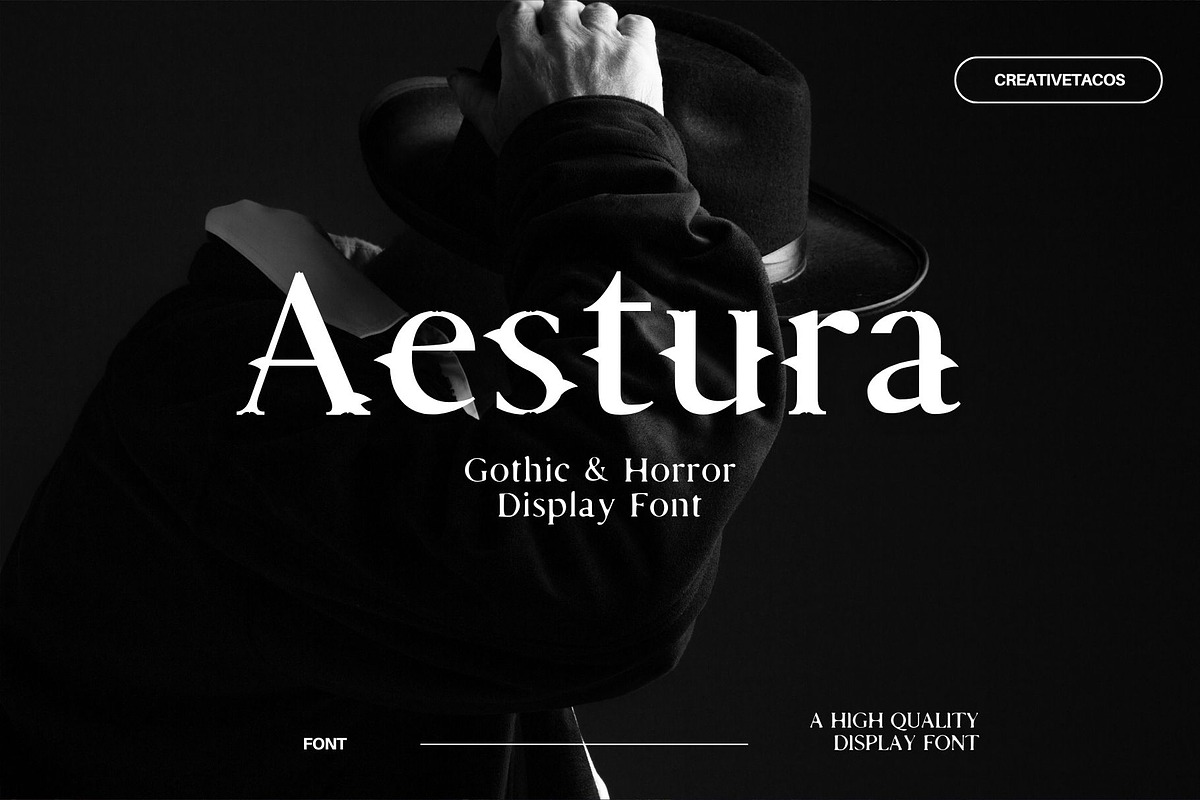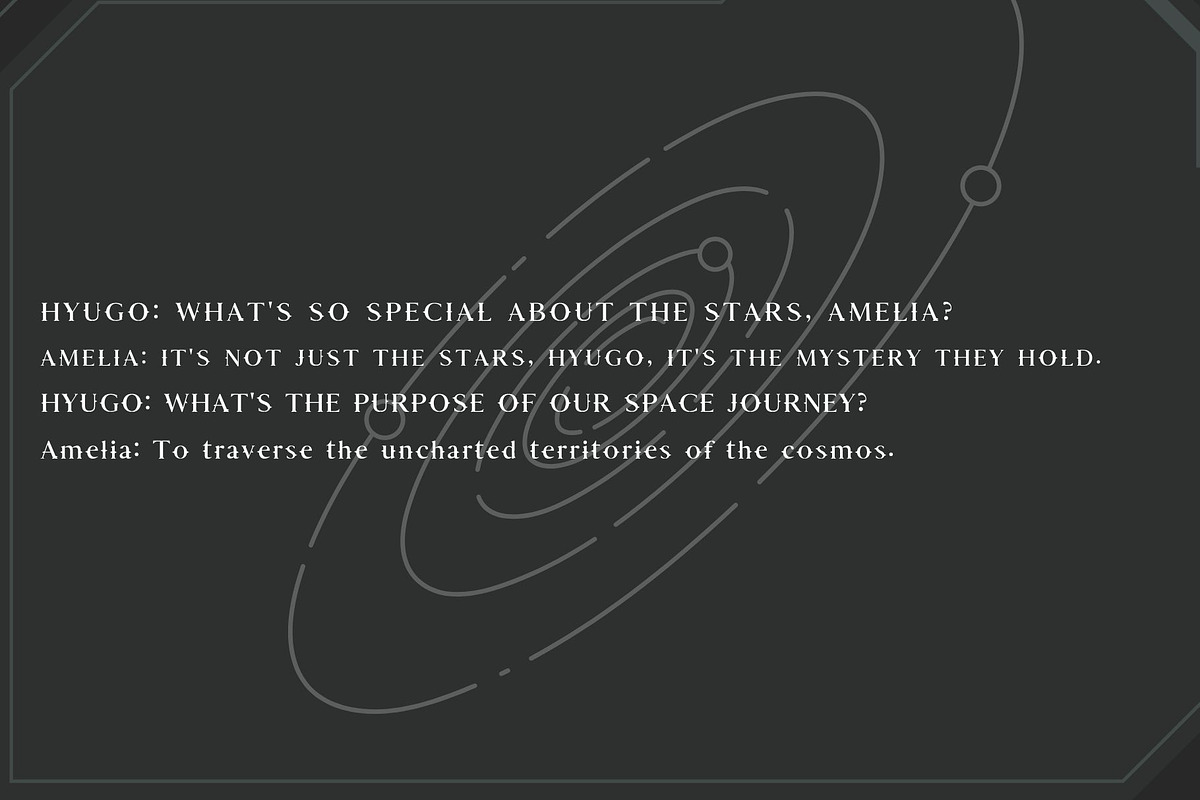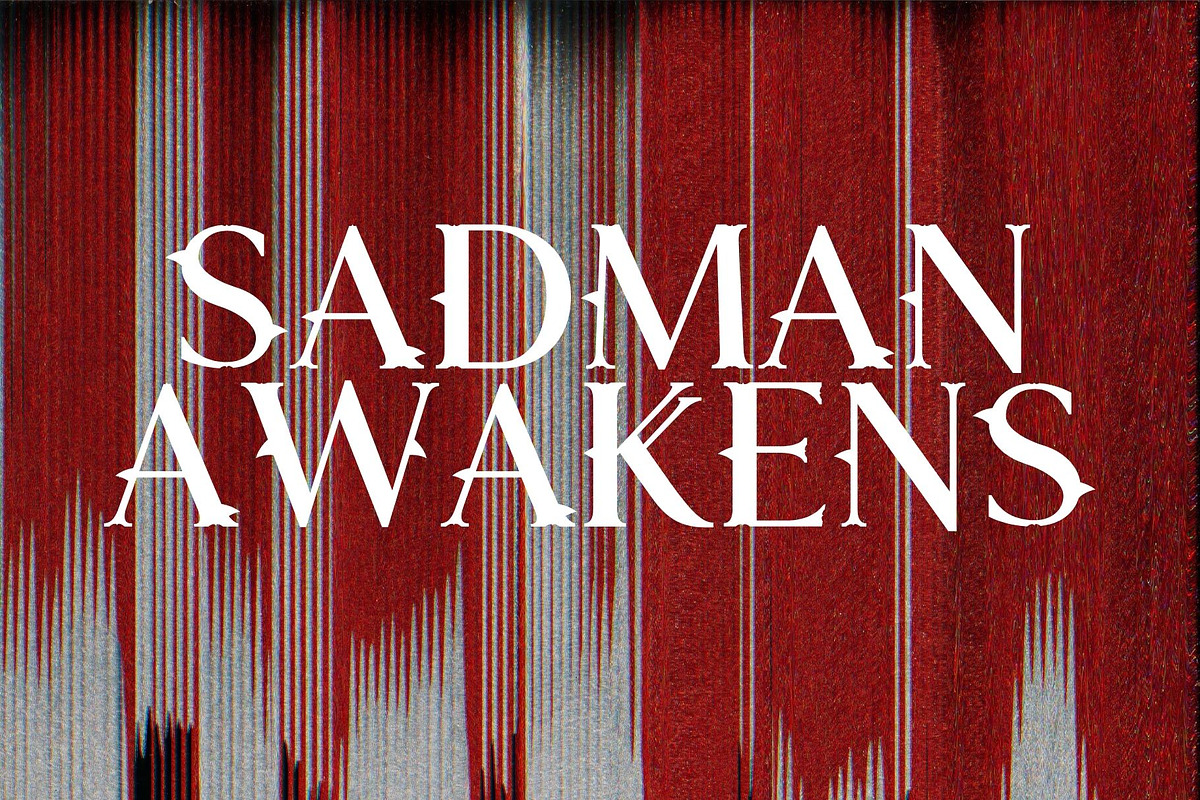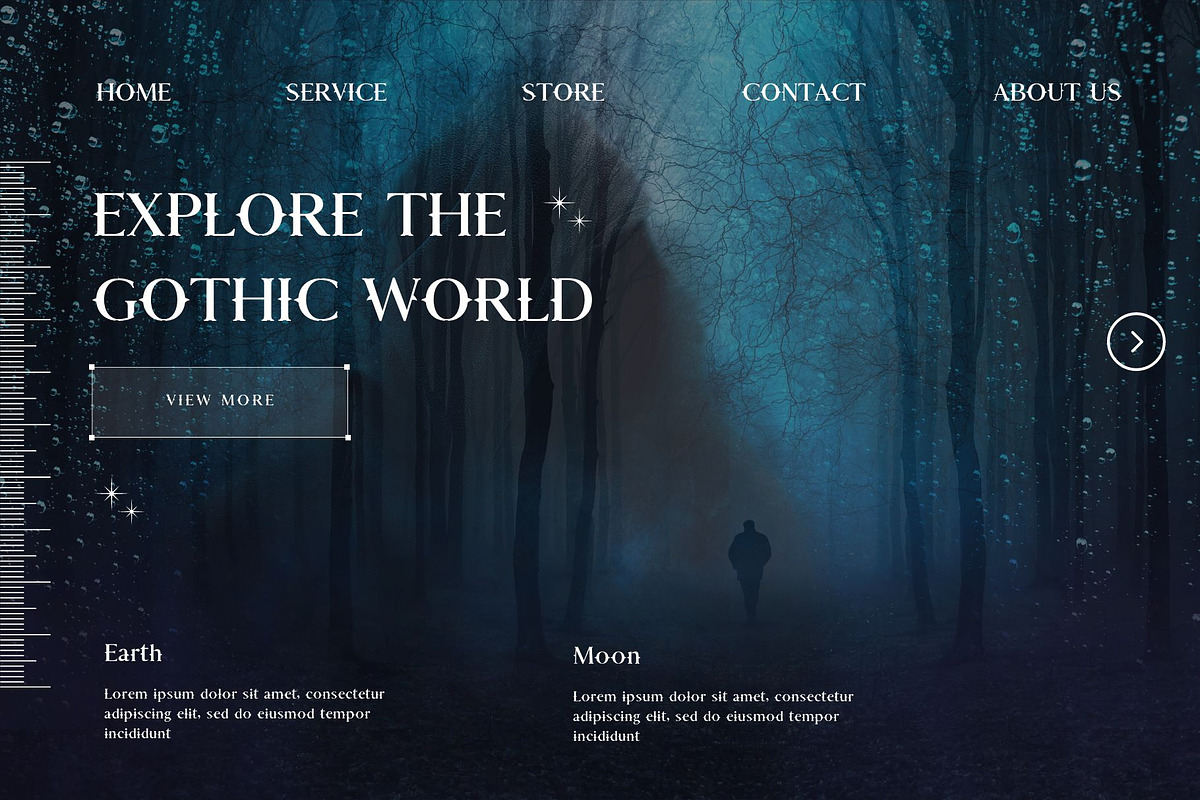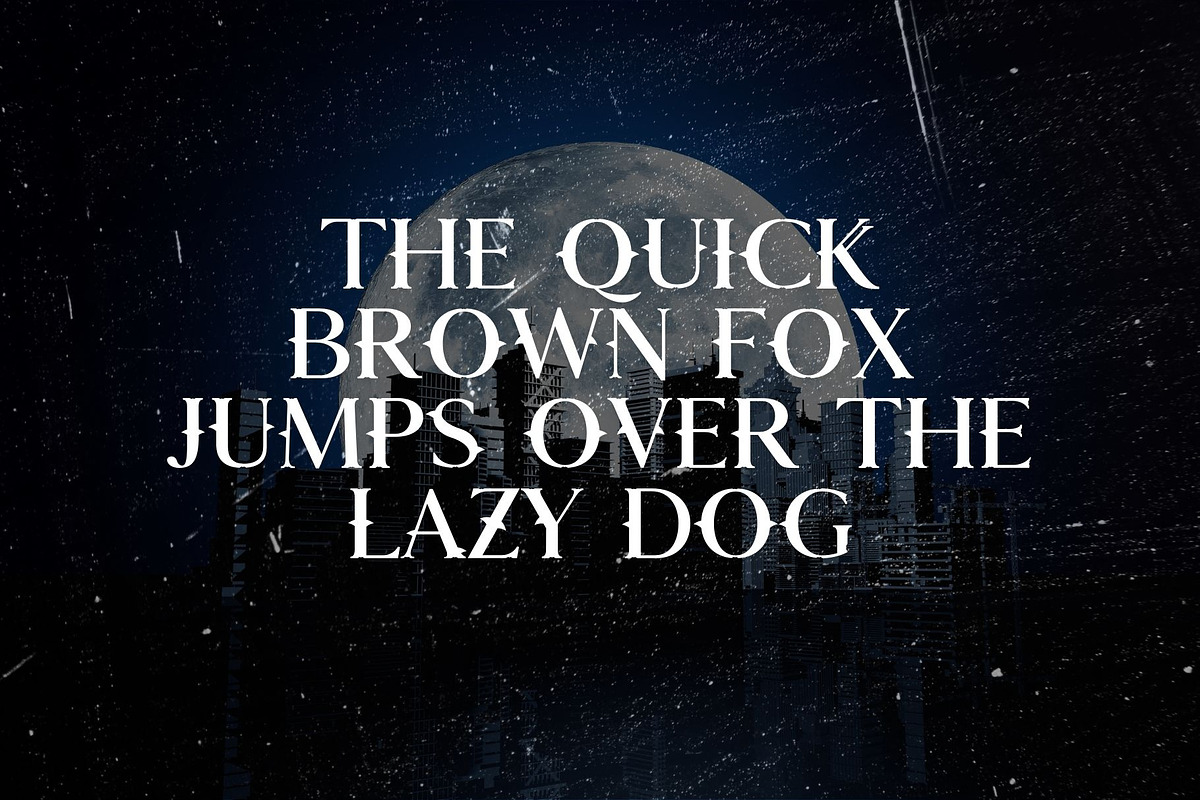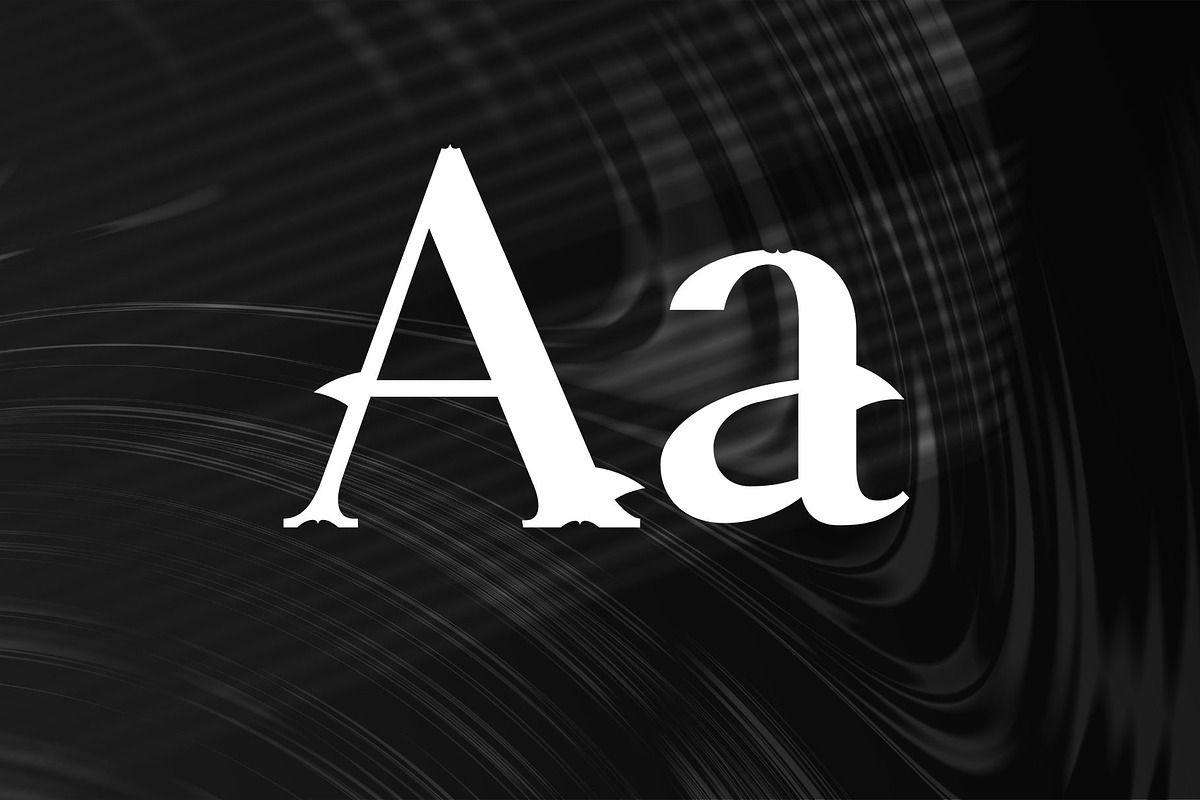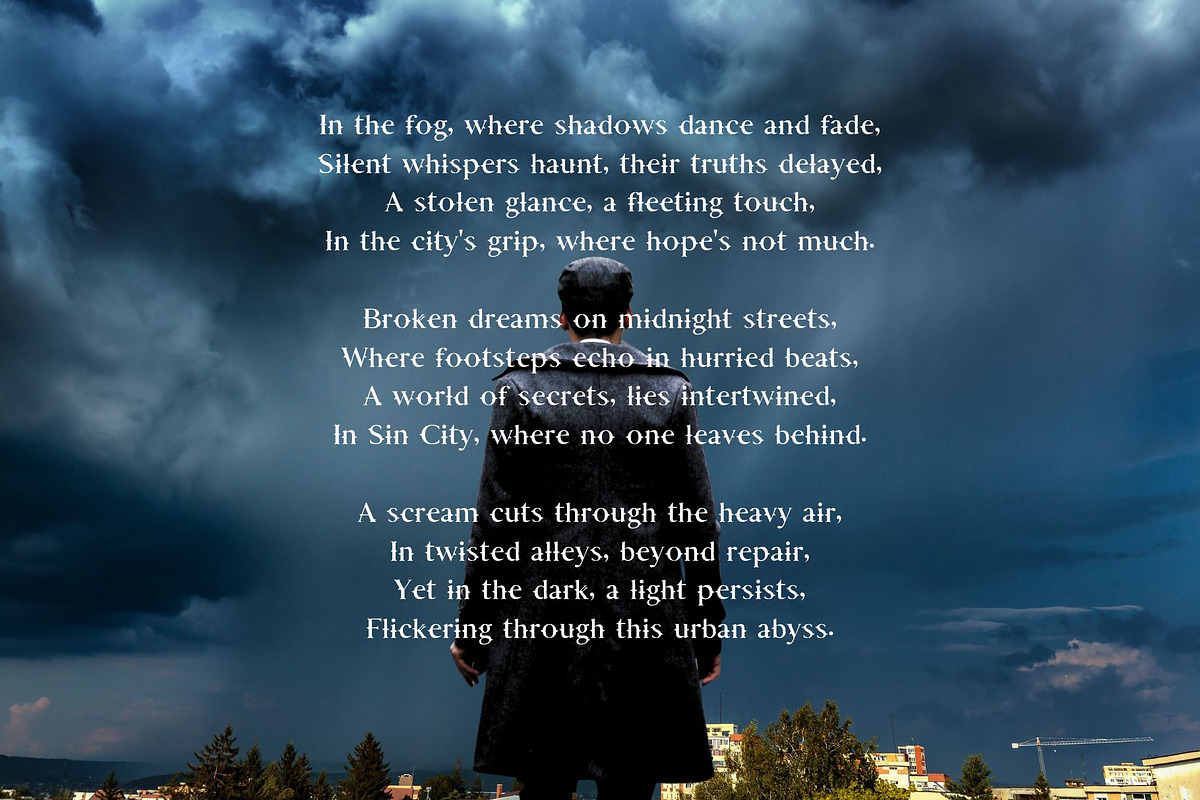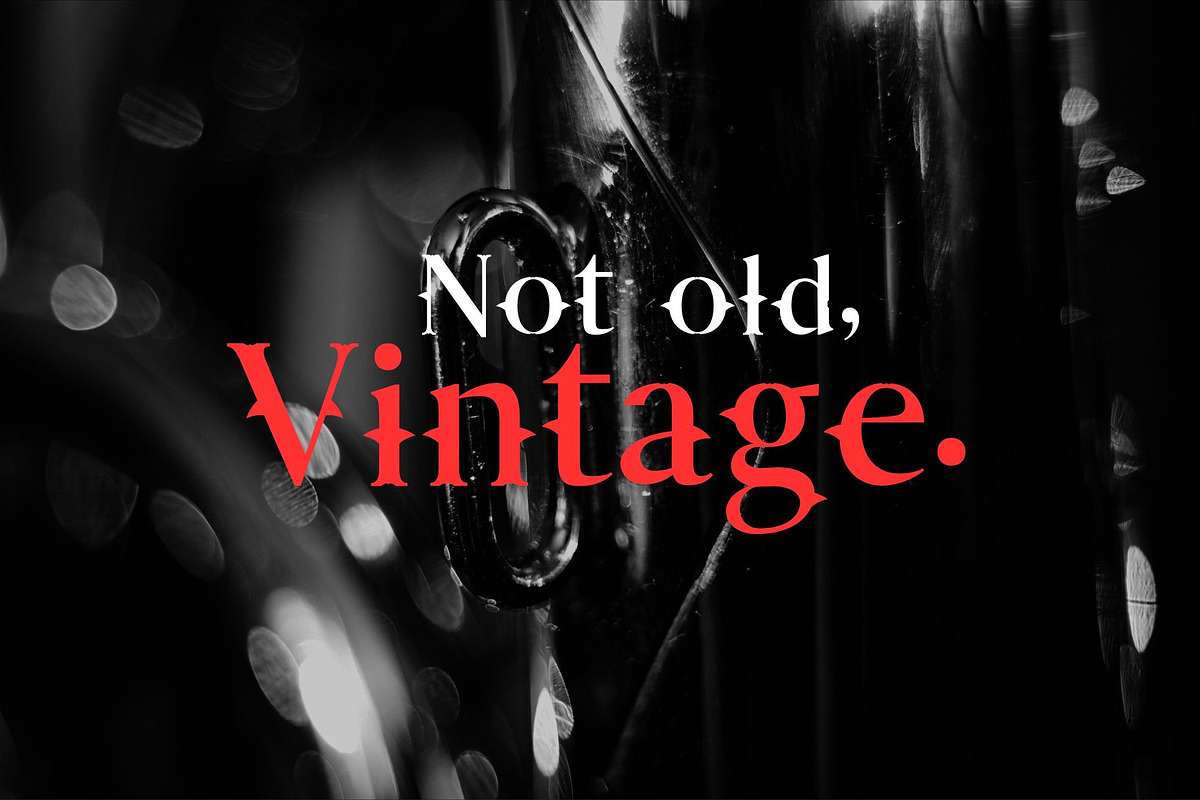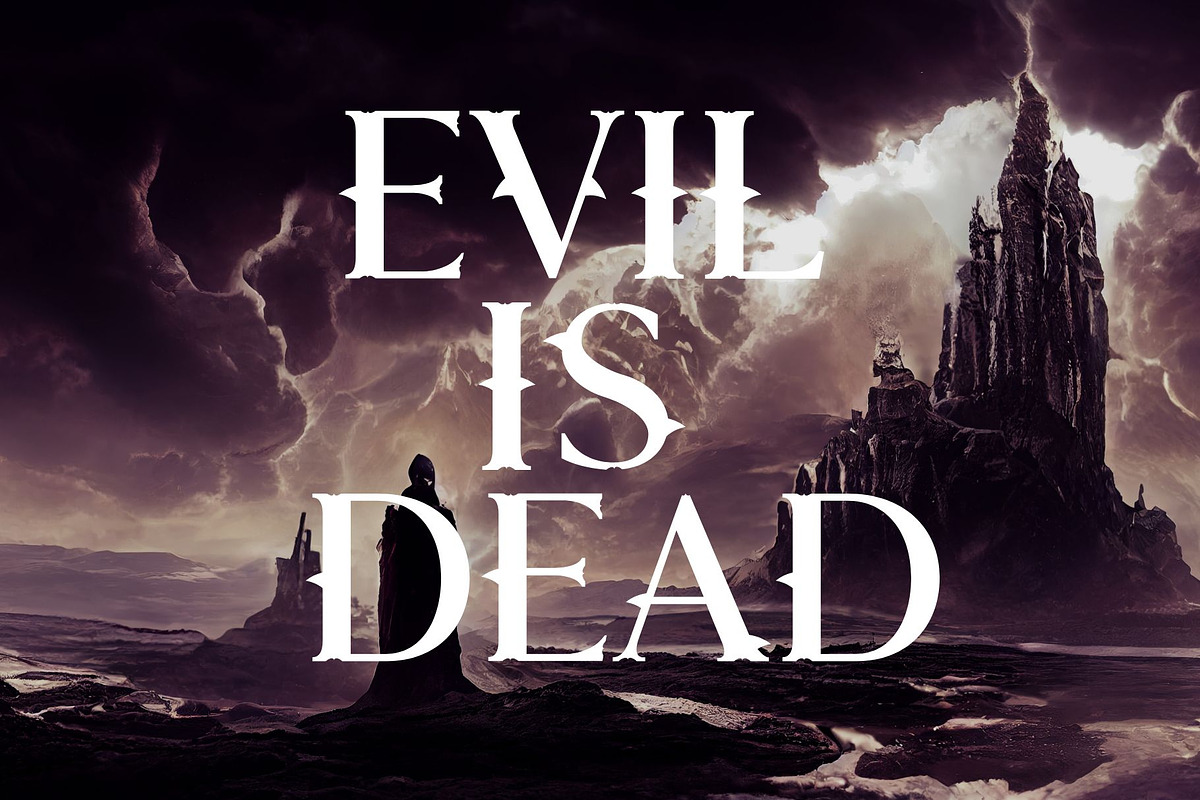
Aestura - Gothic Font
Aestura is a Gothic font that brings a spooky, bold look to your designs. Its sharp and dark letters work well for horror movies, book covers, or Halloween projects. The font’s strong appearance instantly catches the eye and adds a mysterious atmosphere.
It comes with uppercase, lowercase letters, numbers, and special characters for different languages. Whether your project is Gothic, fantasy, or just needs a dramatic touch, Aestura creates a bold, haunting vibe.